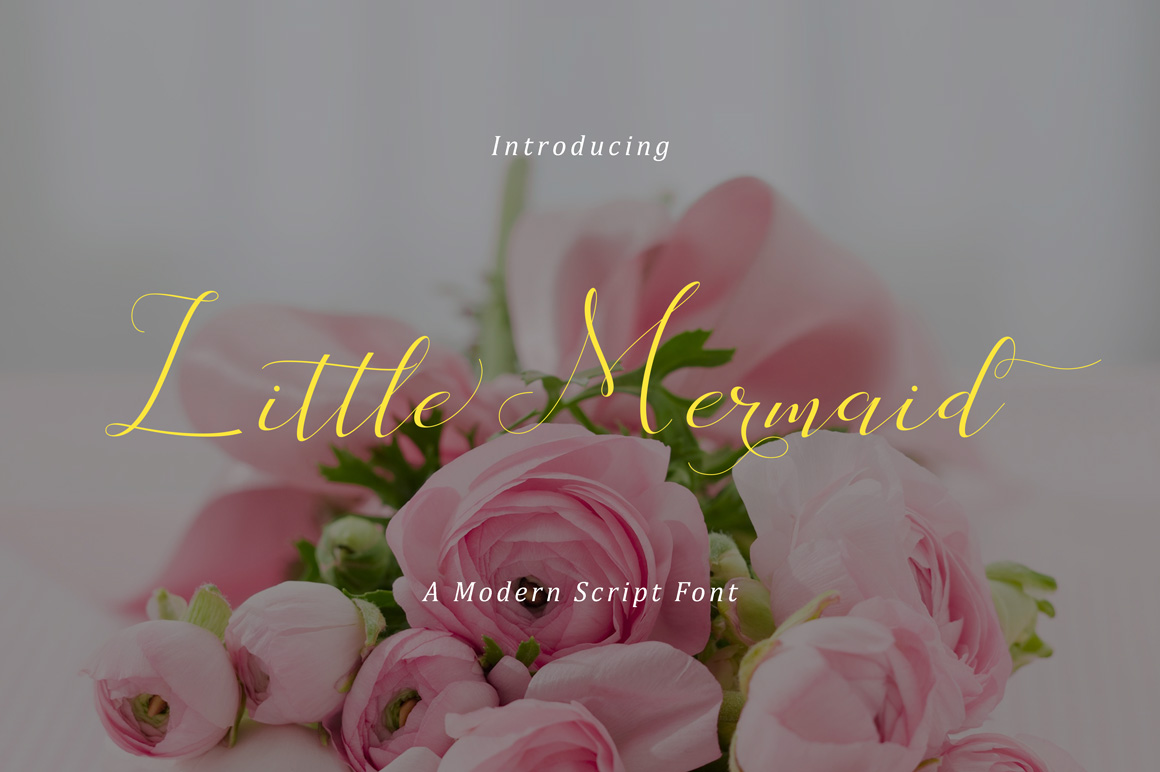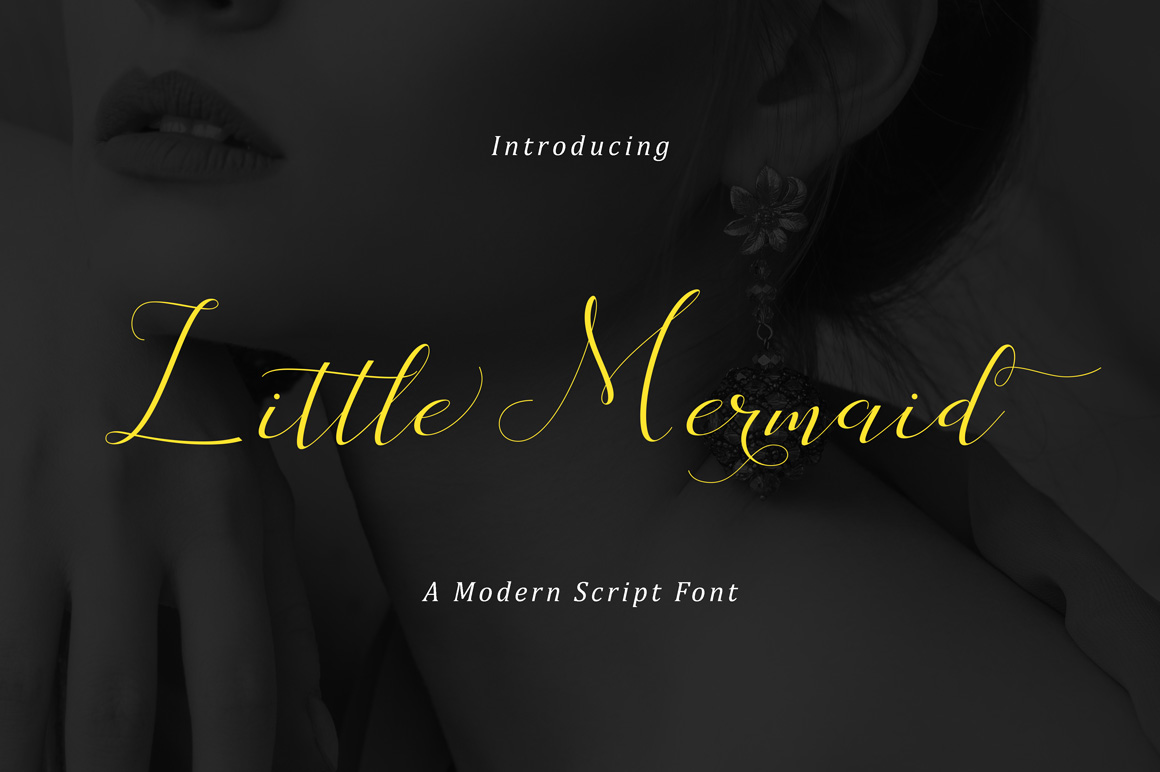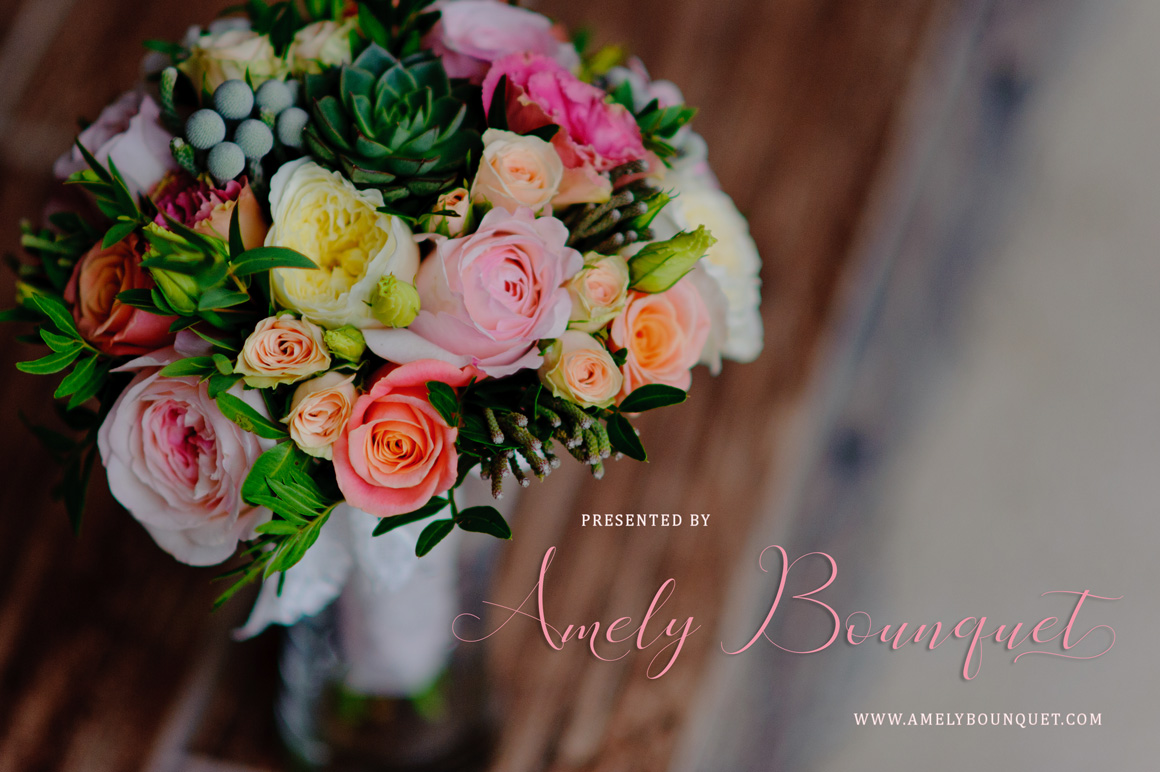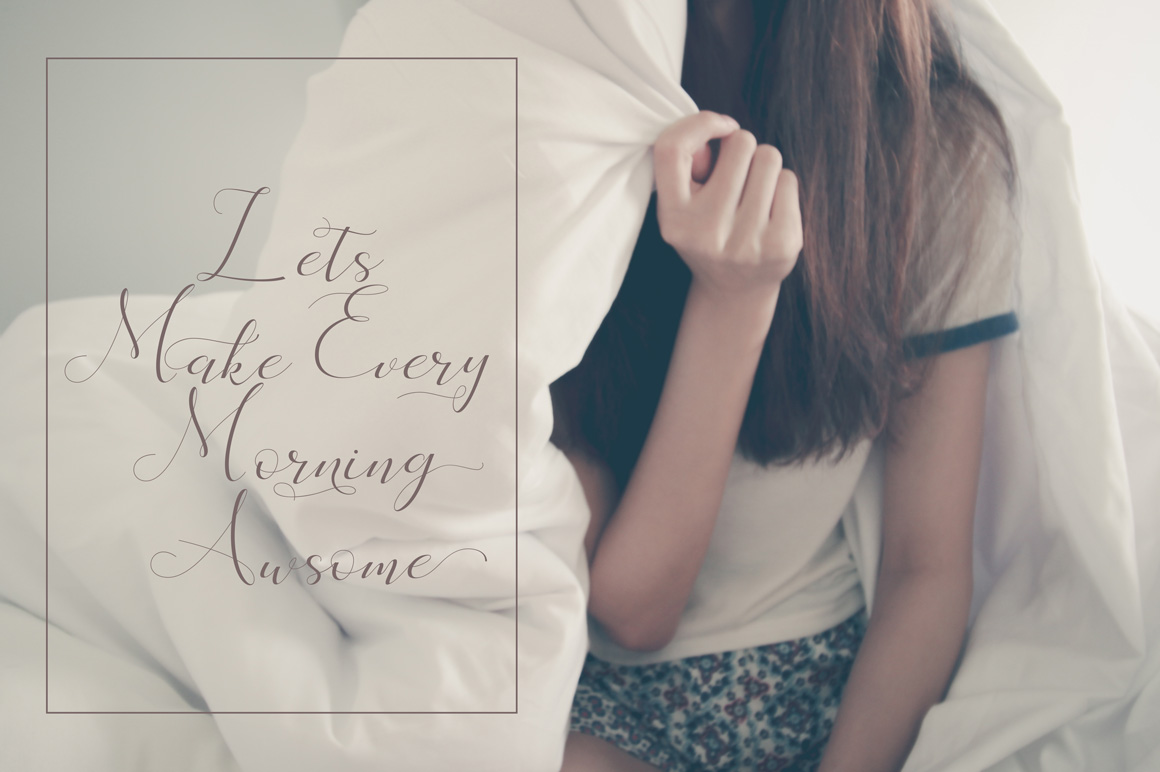
Little Mermaid Font
About Little Mermaid Font
Little Mermaid is a script font that is a unique blend of classic and modern font styles. Imperfect style ups and downs – like dancing letters – Little Mermaid is smooth, clean and simple. This is a gorgeous and thin script that you’ll use time and time again.